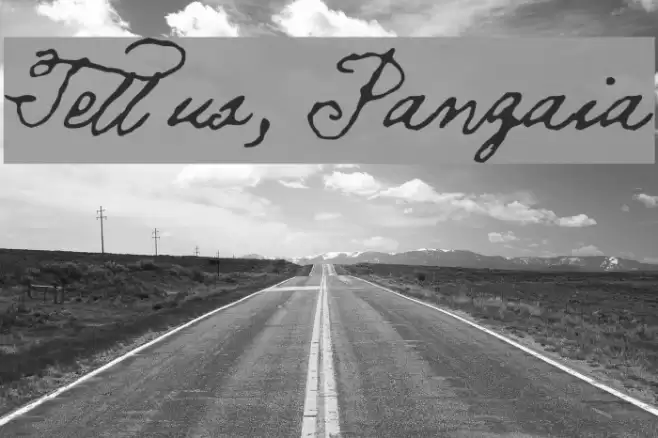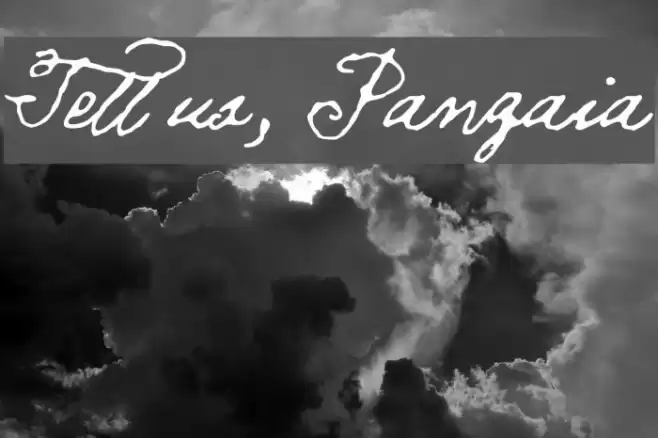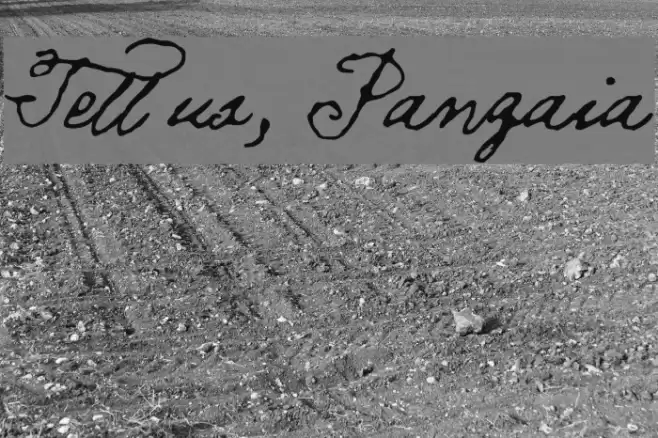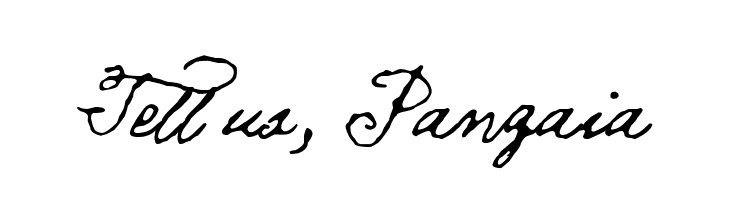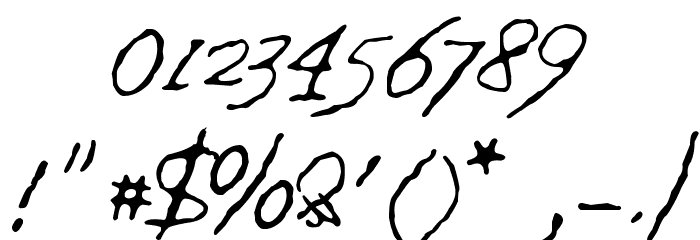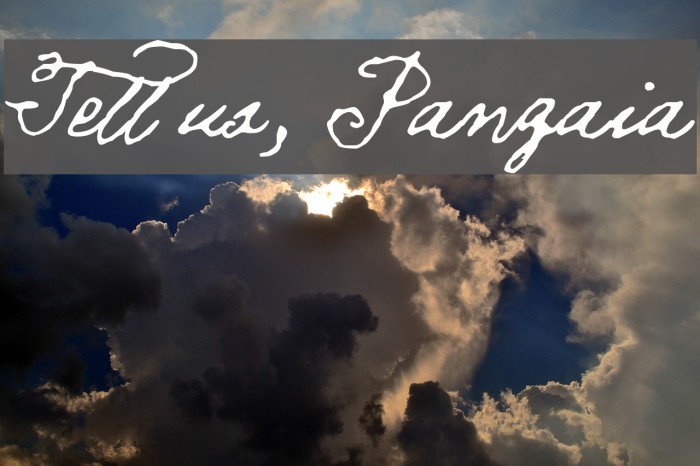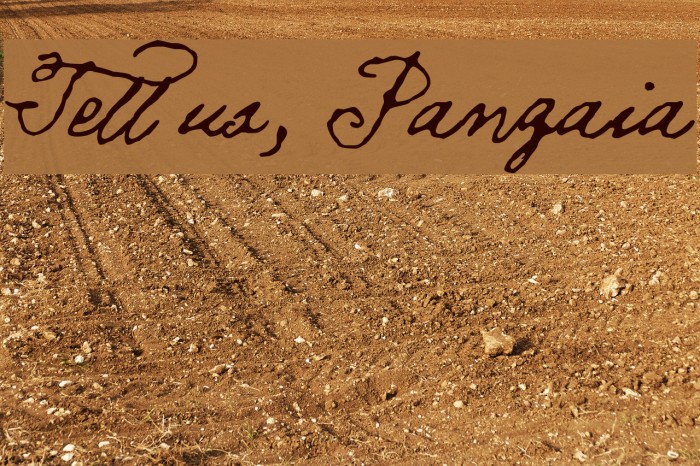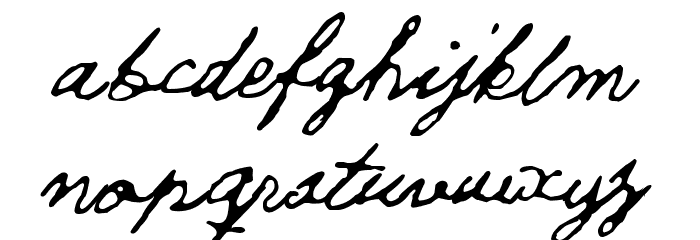
Tell us, Pangaia Font
Tell us, Pangaia Description
This font features a dynamic and expressive handwritten style, characterized by its fluid and cursive letterforms. The strokes are varied in thickness, giving it a lively and personal touch. The uppercase letters are bold and slightly slanted, while the lowercase letters maintain a consistent flow, enhancing readability. Numbers and special characters are crafted with the same attention to detail, ensuring a cohesive look across all elements. This font exudes a sense of creativity and individuality, making it suitable for projects that require a personal or artistic flair.
A dynamic, expressive handwritten font with fluid cursive letterforms from Handwritten fonts.
- Font: Tell us, Pangaia
- Proposed Projects: Ideal for personal invitations, artistic branding, creative posters, and expressive social media graphics.
- Overall Style: Artistic
- Use Case: Logos, Invitations, Artistic projects